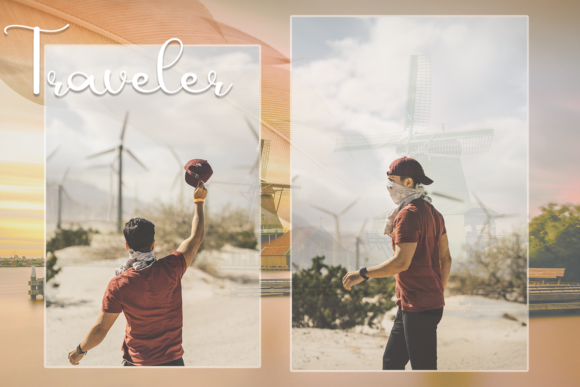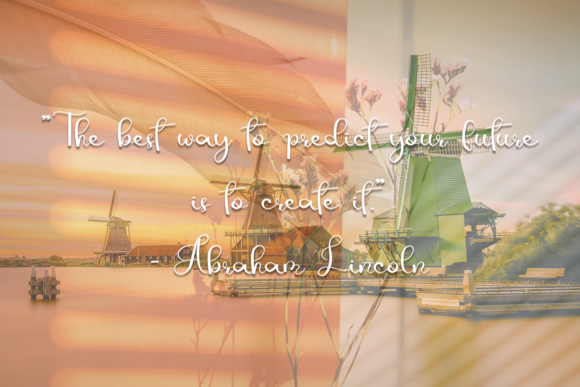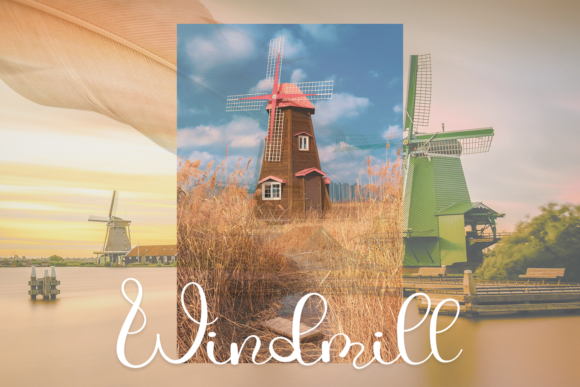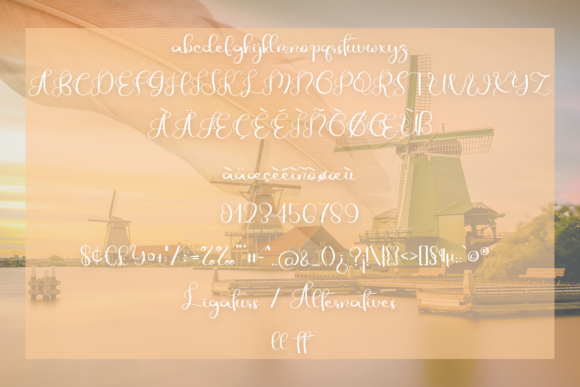
Discover the Elegance of Amsterdam Font: Elevate Your Designs with this Fashionable Script Font
In the world of typography, fonts play a crucial role in conveying the tone and aesthetic of a design. For designers and crafters seeking a font that exudes elegance and sophistication, the Amsterdam Font is an exceptional choice. This beautifully crafted script font is designed to enhance any creation, making it a valuable addition to your font library.
What Makes Amsterdam Font Stand Out?
Amsterdam Font is a fashionable script font that boasts a high level of detail and refinement. Its neat and elegant design makes it versatile enough to be used across various topics and design projects. Whether you’re working on a branding project, a wedding invitation, or a packaging design, this font is sure to impress.
One of the key features that sets Amsterdam Font apart is its ability to add a touch of sophistication to any design. Its flowing script lines and carefully crafted letterforms create a sense of luxury and refinement, making it perfect for designers who want to create high-end designs.
Key Features of Amsterdam Font
- Highly detailed and refined design: Amsterdam Font features intricate details and a high level of craftsmanship, making it a standout in any design.
- Versatile and adaptable: This font can be used across various design projects, from branding and advertising to packaging and editorial design.
- Elegant and sophisticated: Amsterdam Font exudes luxury and refinement, making it perfect for designers who want to create high-end designs.
- Easy to read and understand: Despite its ornate design, Amsterdam Font is clear and legible, making it suitable for use in a variety of contexts.
How to Use Amsterdam Font in Your Designs
Amsterdam Font is an incredibly versatile font that can be used in a wide range of design projects. Here are a few ideas to get you started:
- Branding and logos: Use Amsterdam Font to create a sophisticated and elegant brand identity that sets your business apart.
- Wedding invitations and stationery: This font is perfect for creating beautiful and elegant wedding invitations, save-the-dates, and other stationery.
- Packaging design: Add a touch of luxury to your packaging design with Amsterdam Font, making your products stand out on store shelves.
- Editorial design: Use Amsterdam Font to add a touch of sophistication to your editorial designs, such as magazines, newspapers, and blogs.
Tips for Getting the Most Out of Amsterdam Font
To get the most out of Amsterdam Font, here are a few tips to keep in mind:
- Use it sparingly: While Amsterdam Font is beautiful, it’s best used sparingly to avoid overwhelming the design.
- Experiment with different sizes and colors: Play around with different sizes and colors to find the perfect combination for your design.
- Pair it with complementary fonts: Amsterdam Font pairs well with clean and simple fonts, such as sans-serif fonts, to create a striking contrast.
Amsterdam Font is a truly exceptional script font that can elevate any design to new heights. Its elegant and sophisticated design makes it perfect for designers and crafters seeking to create high-end designs. With its versatility, adaptability, and beauty, Amsterdam Font is sure to become a valuable addition to your font library.
Whether you’re a seasoned designer or a crafty DIY enthusiast, Amsterdam Font is a must-have font that will help you create stunning designs that leave a lasting impression.